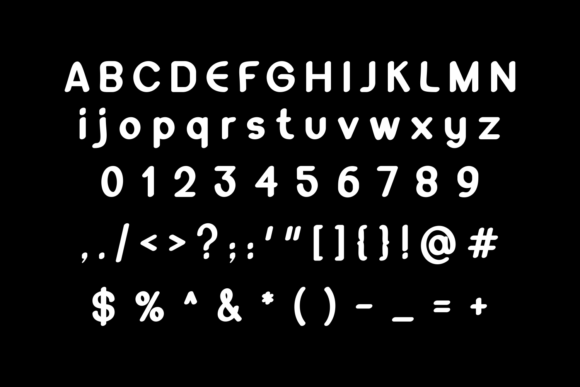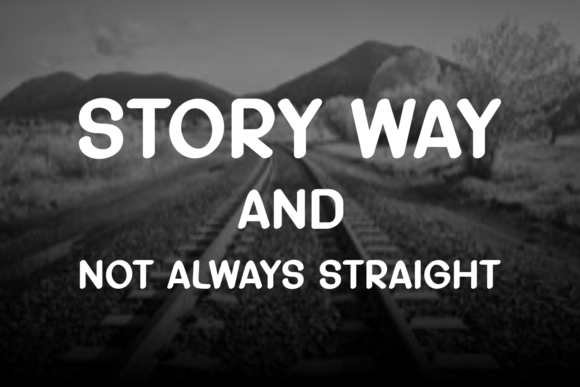
Discover Your New Favorite Font: Begrush Font
You know that moment when you stumble upon the perfect font, and your creative juices start flowing? It’s like finding a hidden treasure that sets your designs apart from the rest. For many designers, this moment is about to arrive with the introduction of the Begrush Font.
Begrush Font is a unique sans serif font that exudes a cool and timeless style. Its distinct features make it perfect for creating spectacular designs that stand out from the crowd. Whether you’re working on a branding project, a magazine layout, or a website, the Begrush Font is sure to bring a touch of sophistication and elegance to your work.
As a designer, you’re always on the lookout for fonts that can elevate your creations and make them truly unforgettable. With the Begrush Font, you’ll find a versatile and valuable tool that will help you create stunning designs that leave a lasting impression.
Begrush Font Key Features
- Font Family: Begrush Font is a unique, modern sans-serif font family designed for digital use.
- Character Set: Supports a wide range of languages, including Latin, Cyrillic, Greek, and more, making it an excellent choice for multilingual designs.
- Unique Characteristics: Begrush Font features a distinctive, geometric aesthetic with a focus on clean lines, rounded corners, and subtle texture, making it perfect for modern branding and digital interfaces.
Begrush Font Review
Overall, I found the Begrush Font to be a visually appealing and unique addition to any design project. The font’s ✨ sleek and modern aesthetic makes it perfect for contemporary designs, from branding to digital interfaces. The font’s clean lines and minimalist design elements make it easy to read and understand, even at smaller font sizes.
- ✨ Unique and modern design aesthetic
- Easy to read and understand, even at smaller font sizes
- Suitable for a wide range of design projects, from branding to digital interfaces
However, I did encounter some limitations while using the Begrush Font. The font’s ⚠️ limited font weight options make it less versatile than other fonts, and the lack of italic and bold styles can be restrictive in certain design situations.
- ⚠️ Limited font weight options
- Lack of italic and bold styles
Overall, I would recommend the Begrush Font for designers looking for a modern and unique font to add some visual interest to their designs. While it may have some limitations, the font’s sleek design and versatility make it a valuable addition to any design library.
The Begrush font is a versatile and modern sans-serif typeface that can be used in various design applications. To get the most out of it, follow these steps:
Tips for Getting the Most Out of Begrush Font
Use the Begrush font in bold and italic styles to add emphasis and visual interest to your designs.
Combine the Begrush font with other design elements, such as graphics and images, to create visually appealing compositions.
Experiment with different font sizes and colors to create a unique and eye-catching design.
The Begrush font is ideal for use in modern branding, digital marketing, and editorial design.
Use the Begrush font for headlines, titles, and body text in your designs.
The Begrush font is also suitable for use in presentations, reports, and other business documents.
Alternatives to Begrush Font for Designers
Montserrat is a sans-serif font designed specifically for digital use. It’s a great alternative to Begrush Font when you need a clean and modern look. Montserrat is more versatile and has a wider range of weights, making it suitable for various design applications.
Comparison to Begrush Font: Montserrat has a more geometric and modern feel, while Begrush Font has a more rustic and vintage look. Montserrat is also more readable in small sizes and has better legibility.